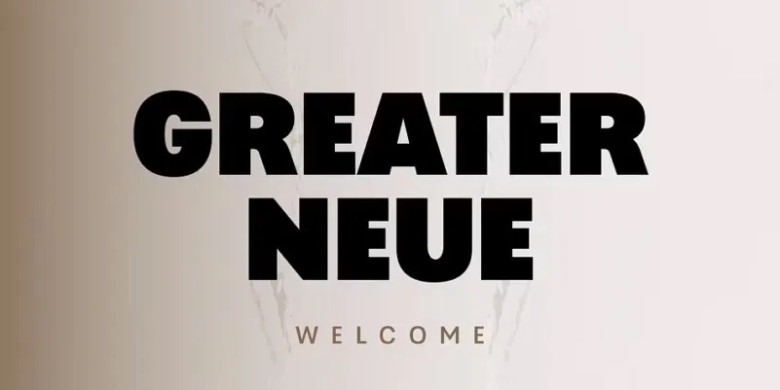
Greater Neue Font
The Greater Neue is a collection of modern sans-serif fonts designed to fit modernity’s demand for non-serif fonts. There are 16 weights and 8 uprights with matching italics; plus there is also a Variable font which can be adjusted in terms of weight and slant to provide flexibility to corporate identity, packaging, advertising, headlines and advertisements, making this font family ideal for graphic design applications, headlines and displays.
Greater Neue Sans Serif Font Family